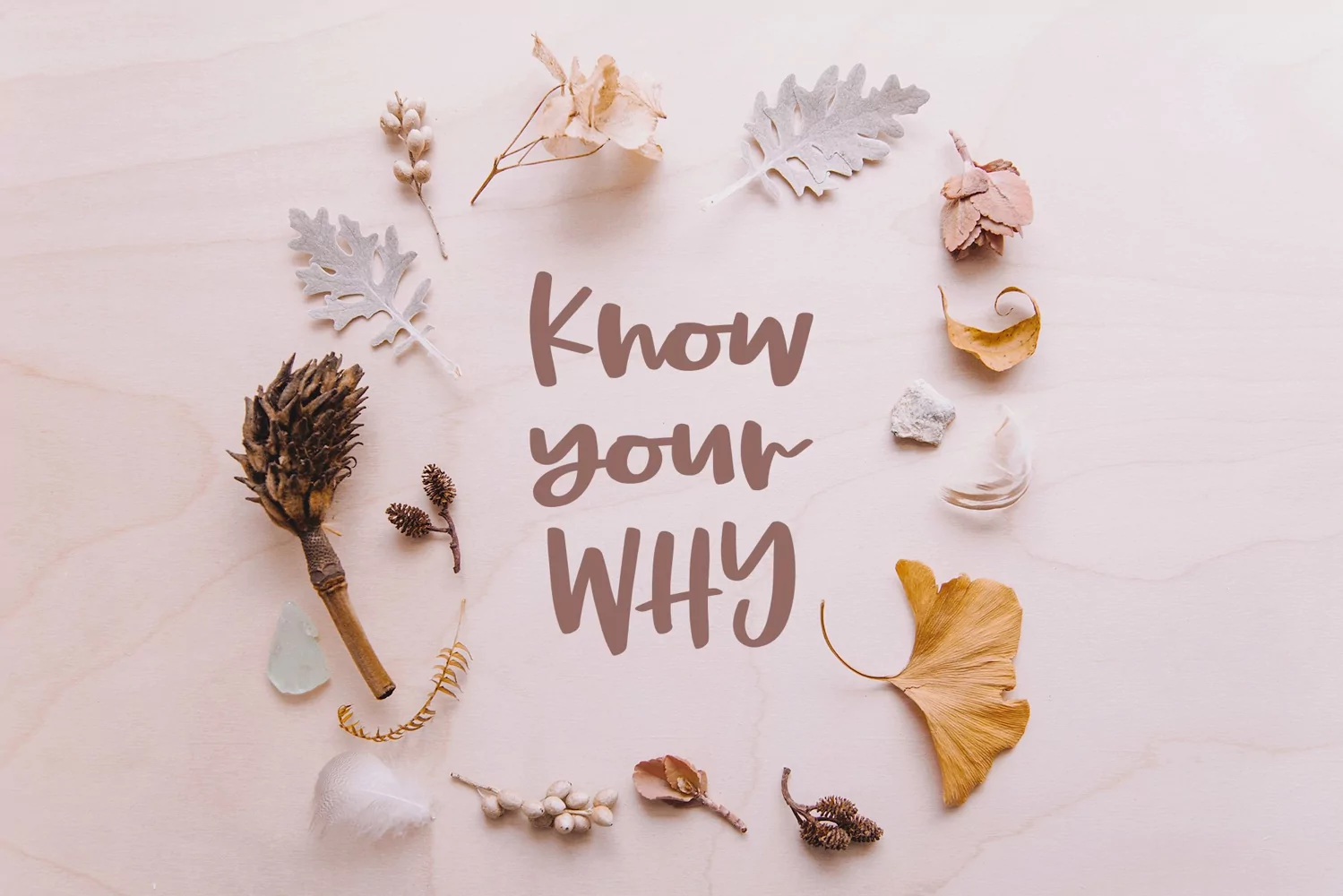
Leyton Hills, a heavy script font
Say hello to Leyton Hills!  It's a heavy, smooth script, with double letter ligatures and some fun alternates to play with.  Perfect for making a very bold statement.  The lowercase letters are compact and cuddle close together, making this a very cute font.
Multilingual characters for Western European languages.